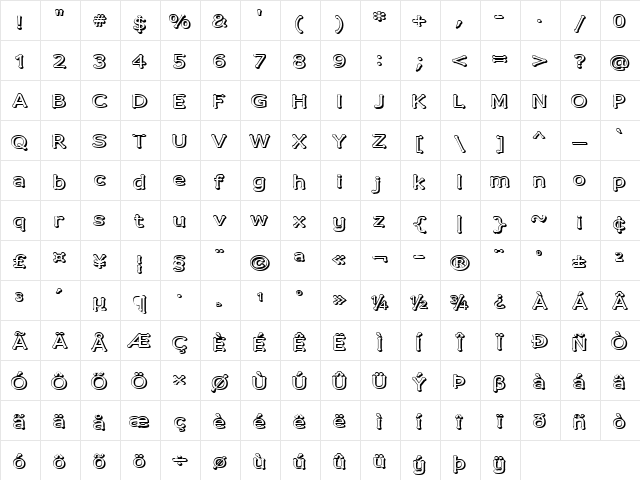
Drummon 3D Regular
| Designer | Graham Meade |
Design Context for Drummon 3D Typeface
Drummon 3D is a composed and adaptable typeface that performs quietly and consistently across a wide range of design contexts.